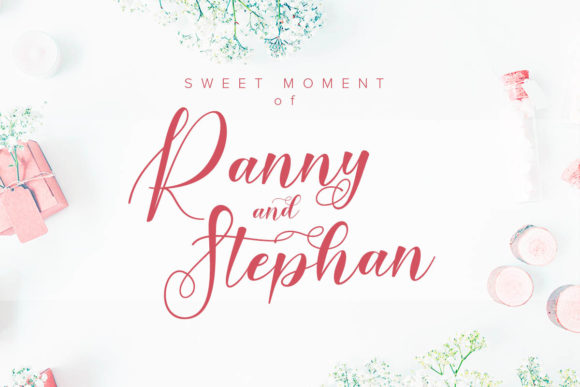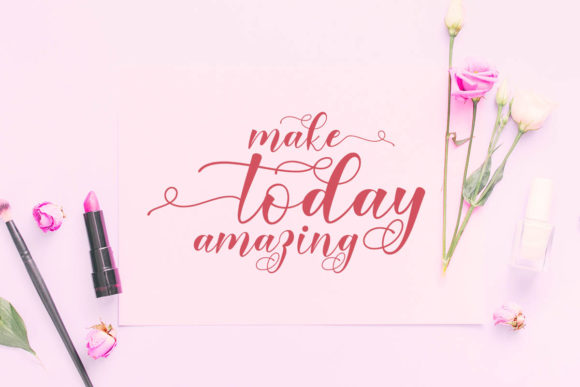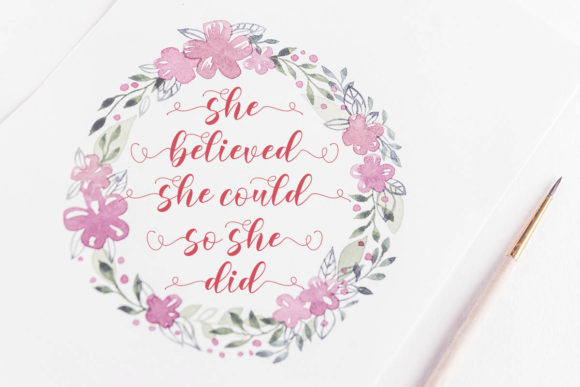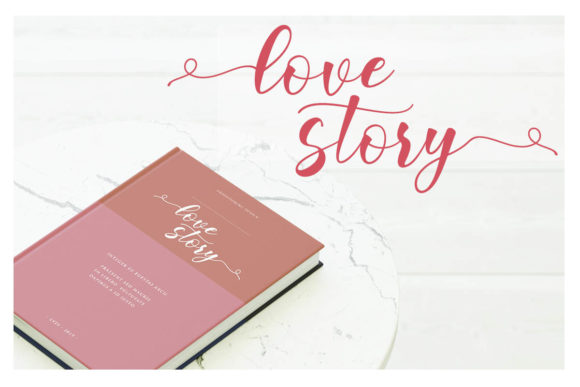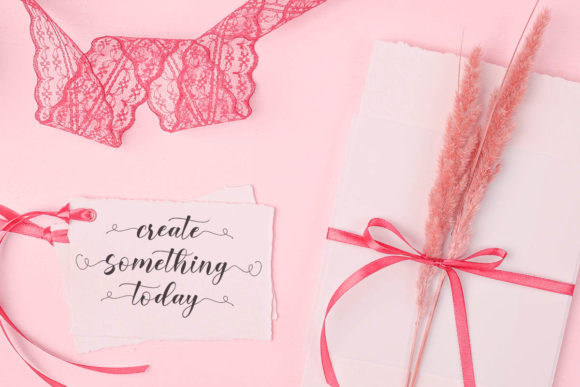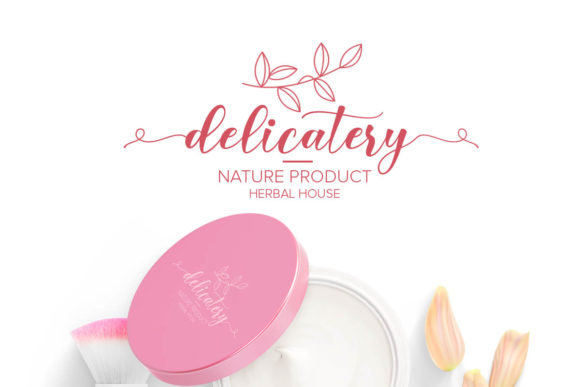
Barelyn Font: The Sweet and Soft Hand-Lettered Font for Your Creative Projects
Are you looking for a font that can add a touch of sweetness and elegance to your creative projects? Look no further than Barelyn Font, a beautiful, soft hand-lettered handwritten font that is sure to capture your heart. With its authentic feel and versatile design, Barelyn Font is perfect for creating stunning wedding invitations, gorgeous stationary art, eye-catching social media posts, and adorable greeting cards.
What Makes Barelyn Font So Special?
Barelyn Font is a unique and charming font that stands out from the crowd. Its soft, hand-lettered design gives it a warm and inviting feel that is perfect for a wide range of creative projects. The font’s authentic look and feel make it ideal for designers and crafters who want to add a personal touch to their work. Whether you’re creating wedding invitations, social media graphics, or greeting cards, Barelyn Font is sure to bring a touch of elegance and sophistication to your designs.
Features of Barelyn Font
Barelyn Font has a number of features that make it a great choice for designers and crafters. Some of its key features include:
- Soft and Hand-Lettered Design: Barelyn Font has a beautiful, soft hand-lettered design that gives it a warm and inviting feel.
- Authentic Look and Feel: The font’s authentic look and feel make it perfect for creating designs that look like they were created by hand.
- Versatile: Barelyn Font is versatile and can be used for a wide range of creative projects, from wedding invitations to social media graphics.
- Elegant and Sophisticated: The font’s elegant and sophisticated design makes it perfect for designers and crafters who want to add a touch of luxury to their work.
Uses for Barelyn Font
Barelyn Font is a versatile font that can be used for a wide range of creative projects. Some of the most popular uses for the font include:
- Wedding Invitations: Barelyn Font is perfect for creating beautiful and elegant wedding invitations that will set the tone for your special day.
- Stationary Art: The font’s soft and hand-lettered design makes it ideal for creating gorgeous stationary art that will add a touch of elegance to any room.
- Social Media Posts: Barelyn Font is a great choice for creating eye-catching social media posts that will grab the attention of your followers.
- Greeting Cards: The font’s cute and playful design makes it perfect for creating adorable greeting cards for any occasion.
Tips for Using Barelyn Font
Barelyn Font is a beautiful and versatile font that is perfect for designers and crafters who want to add a touch of elegance and sophistication to their work. With its soft and hand-lettered design, authentic look and feel, and versatile uses, Barelyn Font is a great choice for a wide range of creative projects. Whether you’re creating wedding invitations, social media graphics, or greeting cards, Barelyn Font is sure to bring a touch of sweetness and charm to your designs.